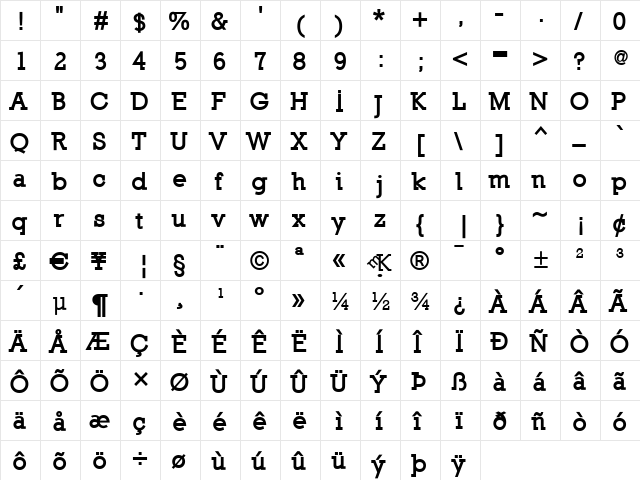
Nilland-Black Regular
Design Context for Nilland-Black Typeface
Nilland-Black offers clean, dependable letterforms without strong stylistic allegiance, making it a practical choice for designers who need flexibility.